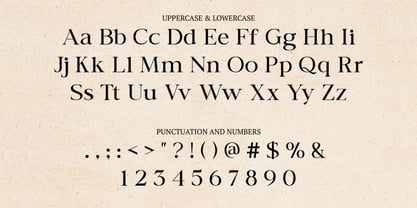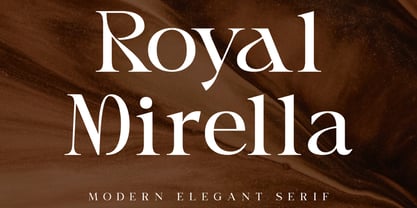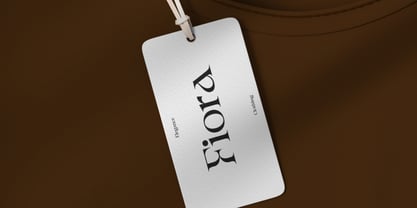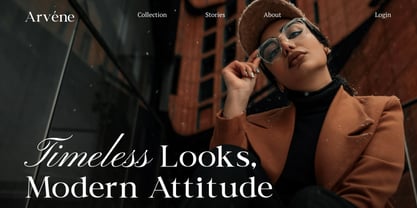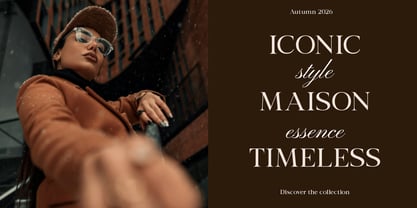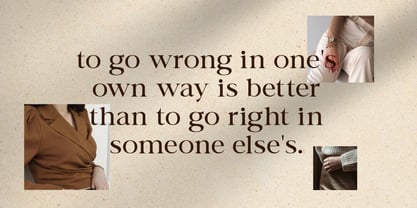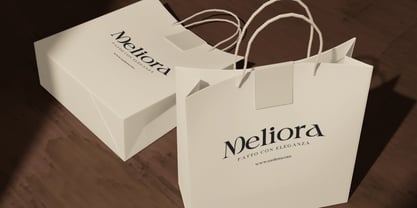
Royal Mirella
The Royal Mirella Font Family was designed by Fajar Indra and published by Rasio Studio. Royal Mirella contains 1 styles. More about this family
Royal Mirella Modern Elegant Serif Font combines contemporary sophistication with timeless serif structure. Its clean contrast, delicate curves, and subtle flared terminals convey both refinement and strength, creating a distinctive balance between modernity and classical charm. Designed for visual elegance, Royal Mirella stands out in editorial headlines, branding, and luxury packaging. Includes uppercase and lowercase letters, numerals, and punctuation characters. With its graceful proportions and artistic form, Royal Mirella adds a sense of exclusivity and prestige to any design composition.